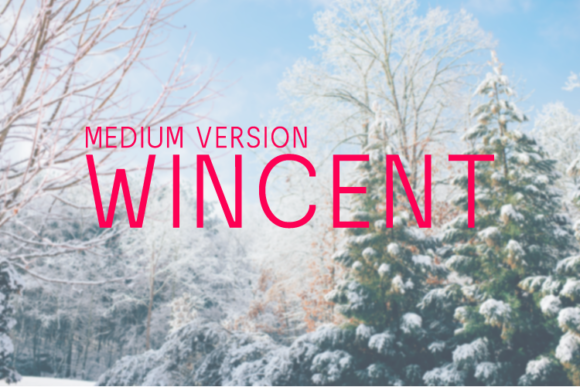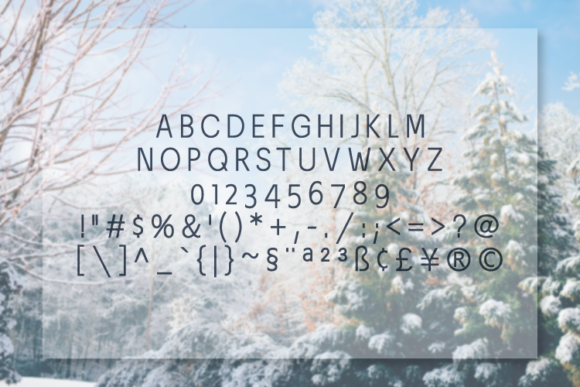
HomeSans Serif FontsWincent Medium Font Sans Serif Fonts Wincent Medium Font FacebookXPinterestWhatsApp Wincent Medium Font 1 of 2 About Wincent Medium Font Wincent is a geometric font family with an incredibly simple and elegant style. It features soft terminals and will give any design project a friendly and expressive look! DOWNLOAD NOW People also explored Amandiasa Augusta Torino Ornaments Font Bellinor Font Gabriella Font Eqra Font Autined Font Adalicia Font Sans Marino Font Herlina Font 330 0 TagsWincent Medium Font Previous articleWincent Semi-Bold FontNext articleWincent Font LEAVE A REPLY Cancel reply Comment: Please enter your comment! Name:* Please enter your name here Email:* You have entered an incorrect email address! Please enter your email address here Website: Save my name, email, and website in this browser for the next time I comment. Personal Use Free Madison Script Personal Use Free Read more about this font Eniem Personal Use Free Read more about this font Sathscha Personal Use Free Read more about this font Braindly Personal Use Free Read more about this font BLOG Fonts That Capture the Spirit of New York City New York City is more than just a place—it’s an experience, a rhythm, a visual language... 5 Fonts That Will Dominate Design Trends in 2026 Exploring Font Trends Transform Your Website: Elevate Your Typography with 7 Best Web Font Generators